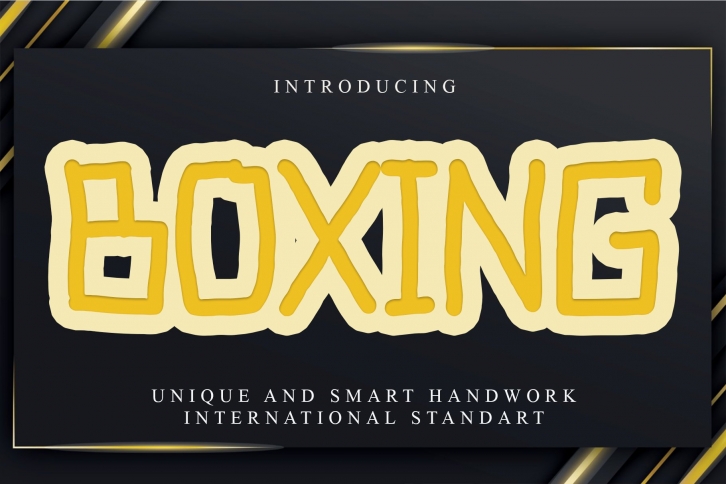
BOXING is a beautiful font that was designed by Giart Studio. It's a great choice for designers and creatives who need such a font. It was released on October 31, 2020 and the file size is 21.20 MB. BOXING may give a more youthful, expressive and casual look to your project. It is a very beautiful, refined, elegant, and high-quality font.